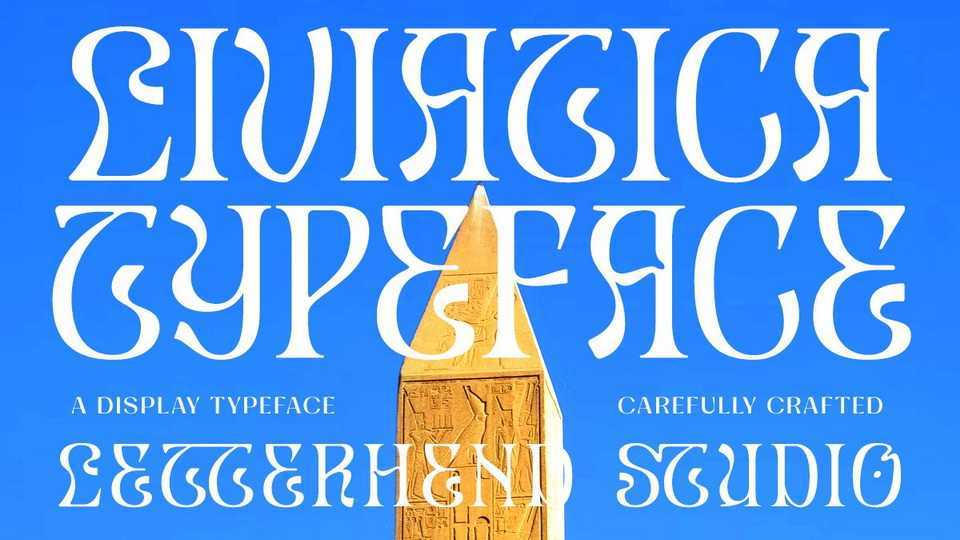
Download Liviatica font, a sophisticated serif typeface with unique letterforms. Liviatica font has been made carefully to make sure its premium quality and luxury feel.